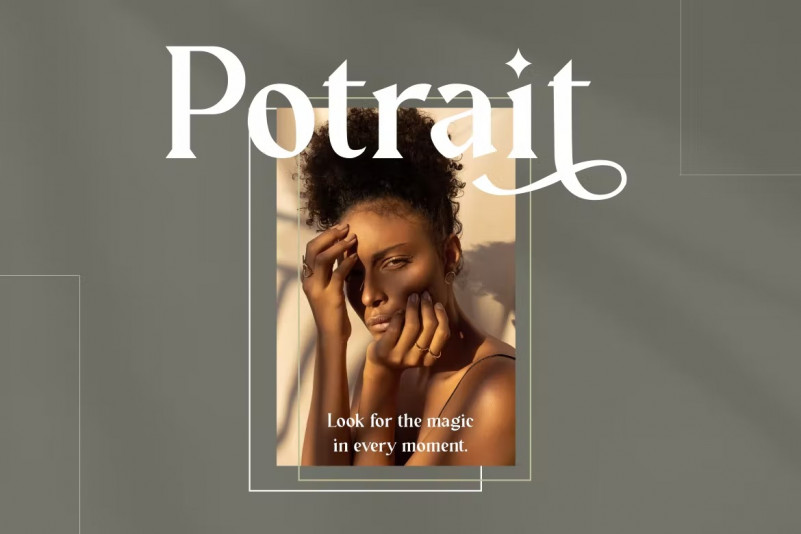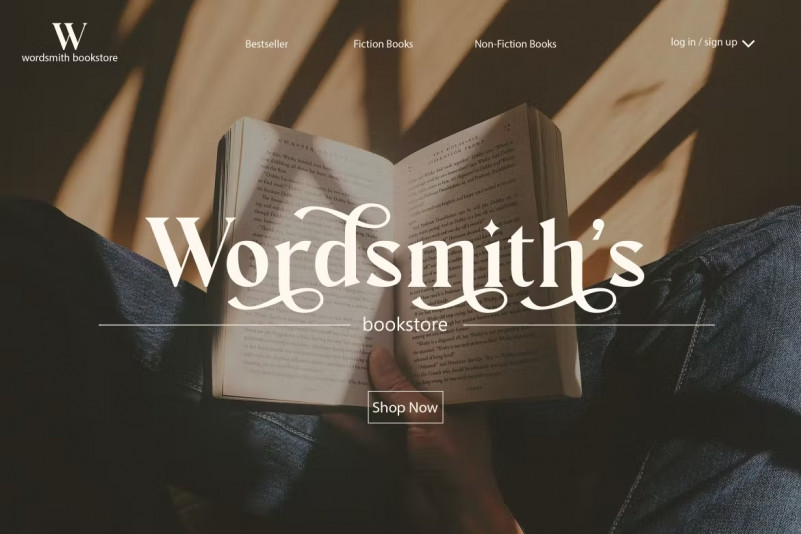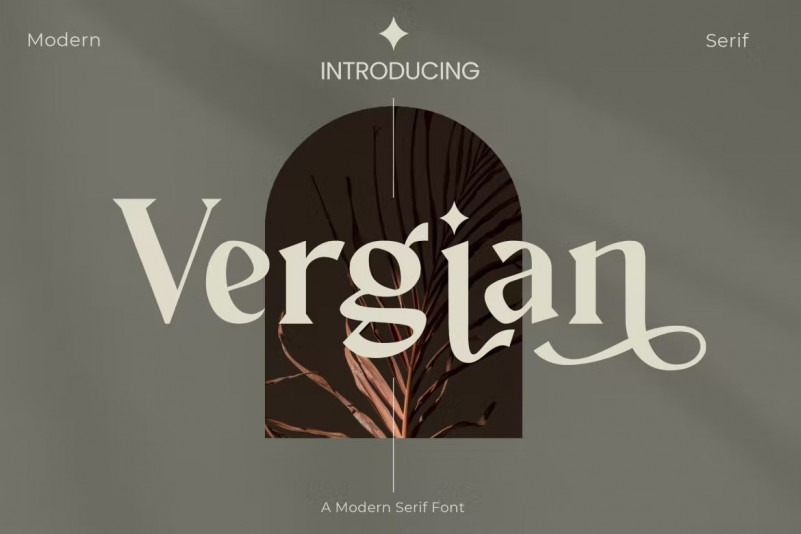
Vergian Font
Introducing Vergian – a Modern Serif Font .
Clean and easily legible, Vergian is the perfect choice for any text that needs to stand out. Check it out and see the difference that a great font can make.